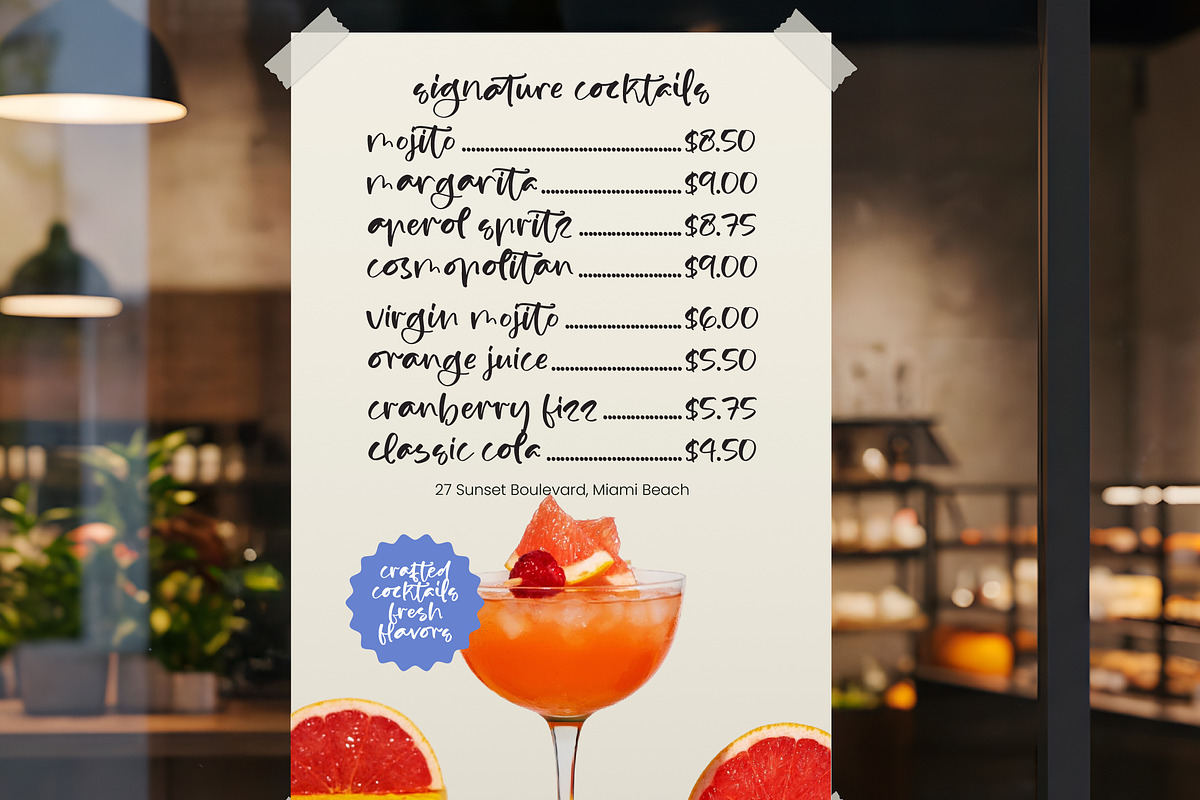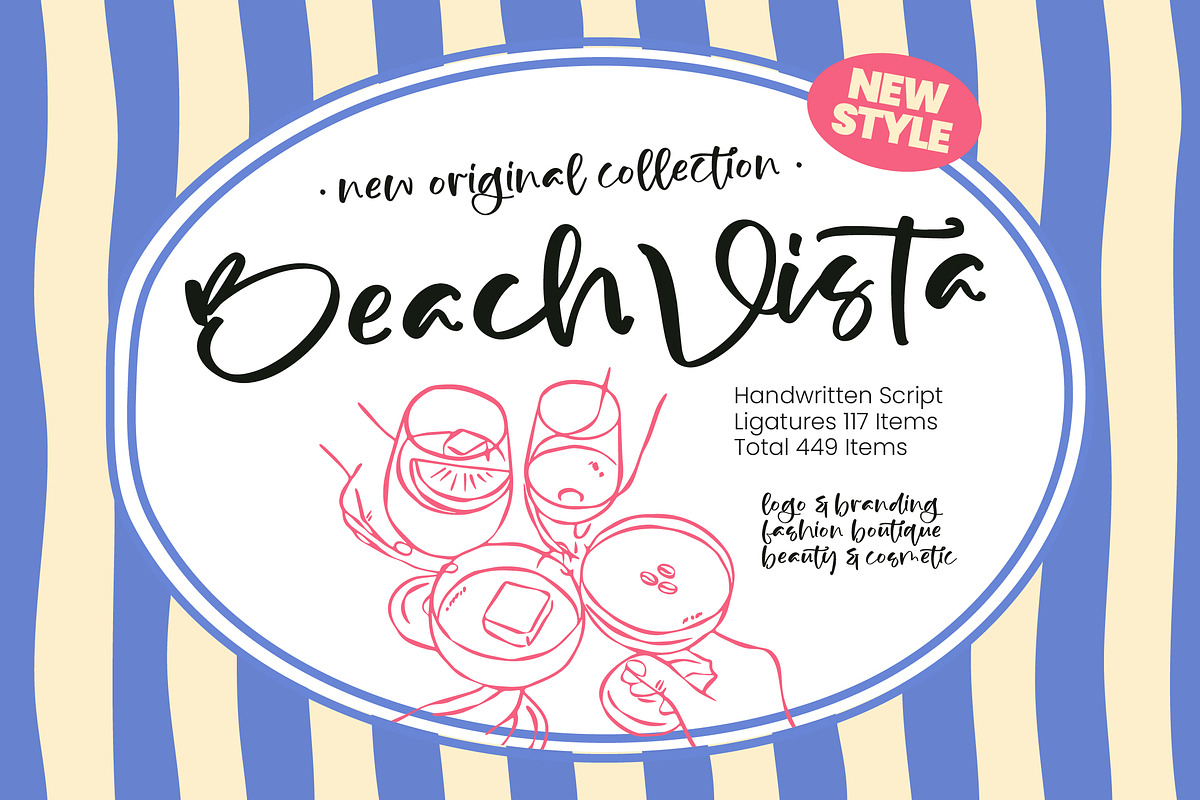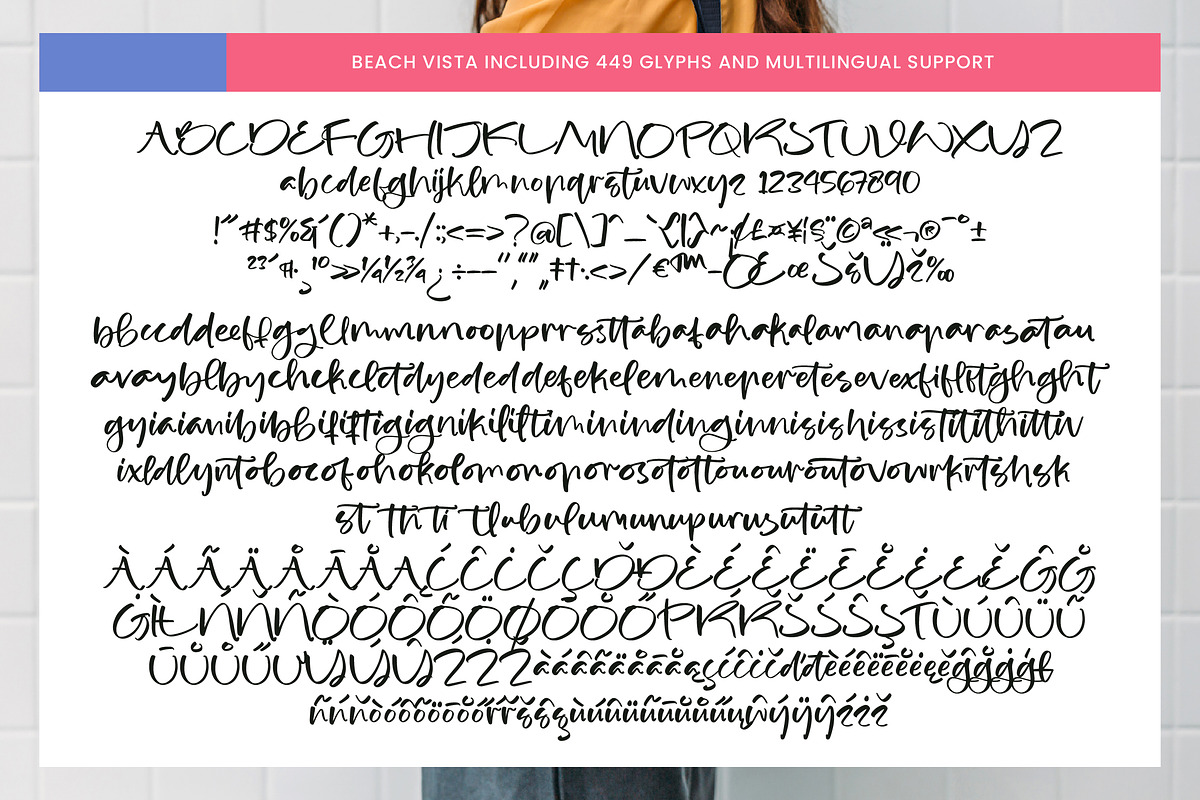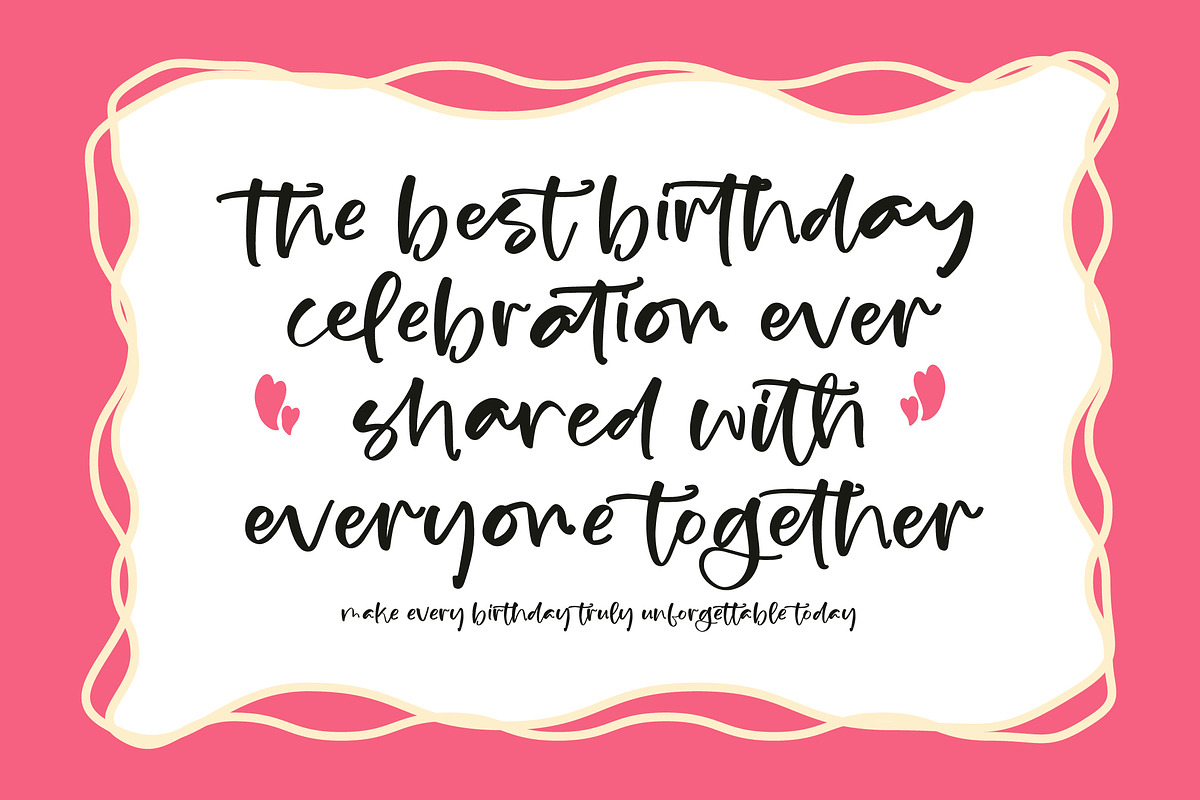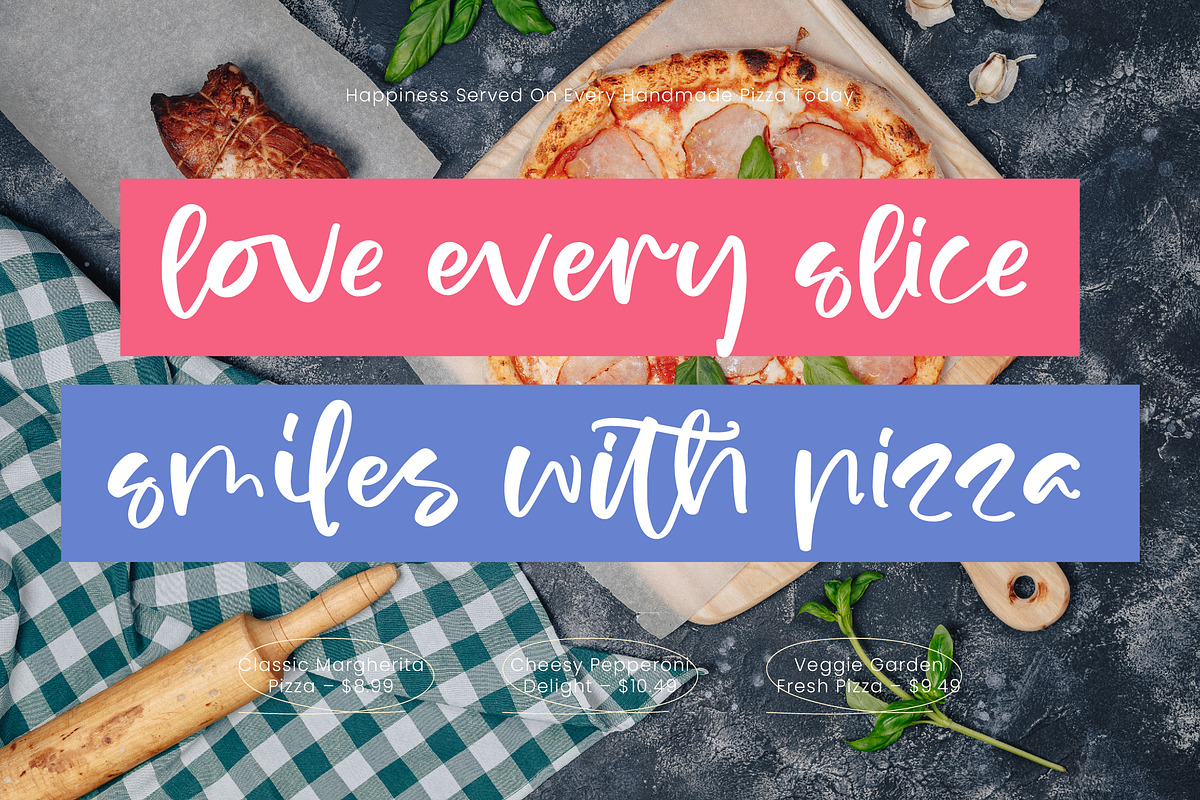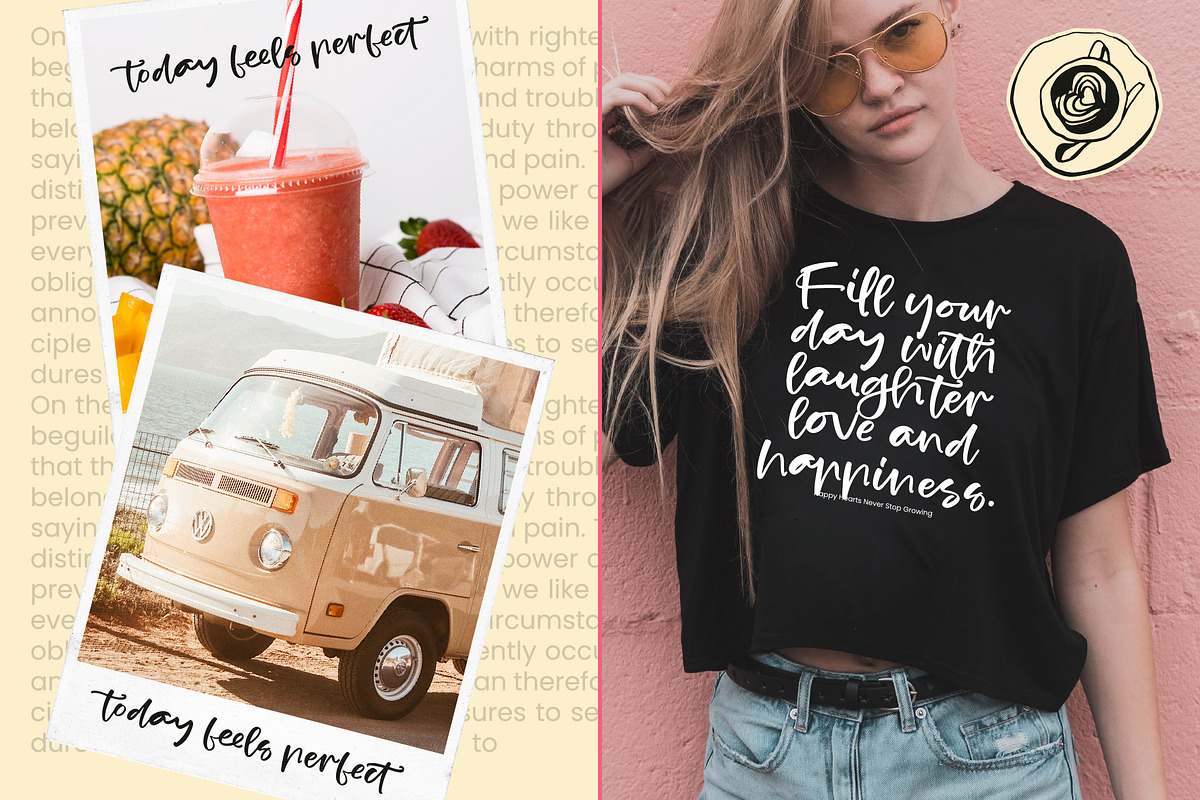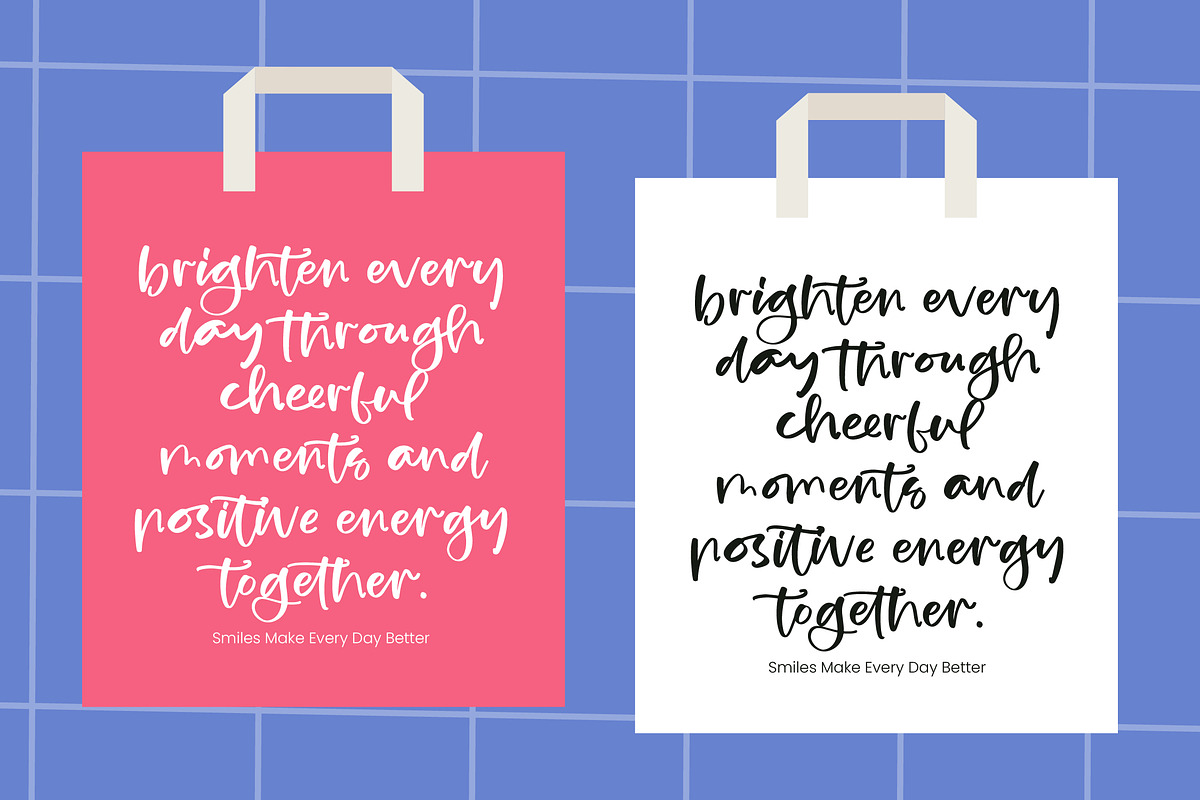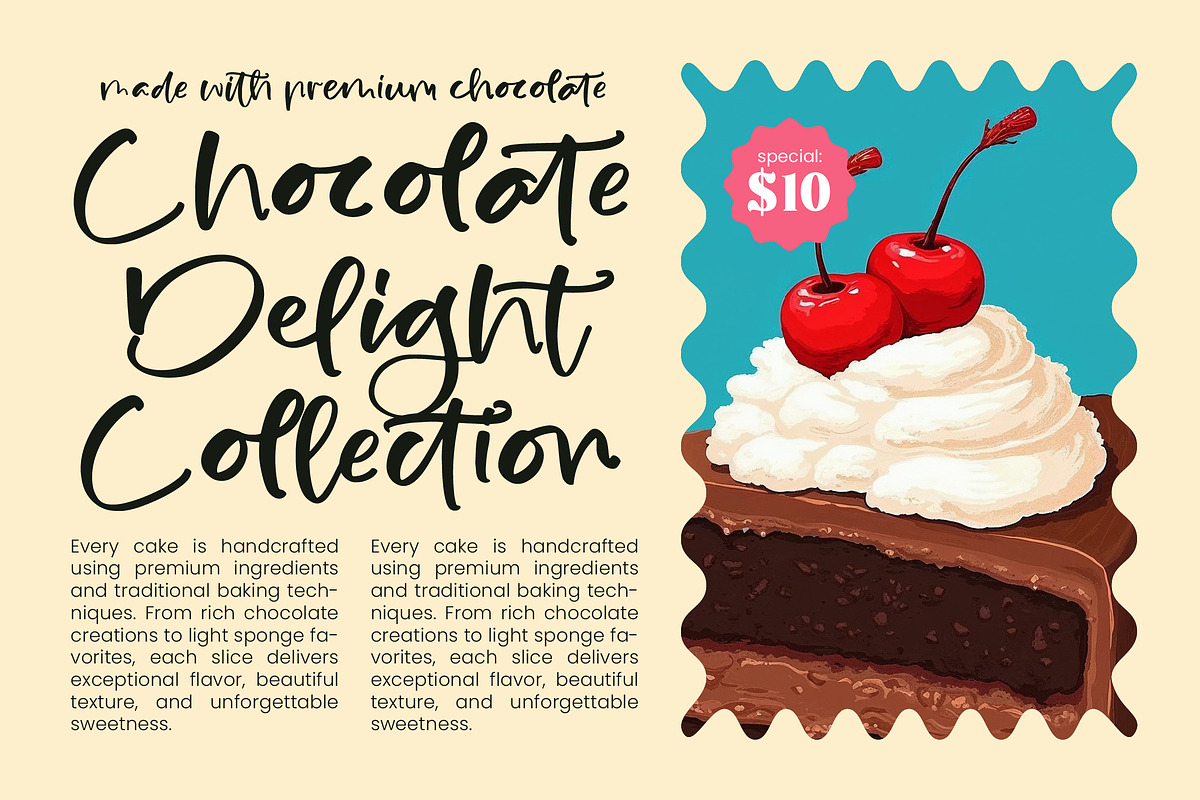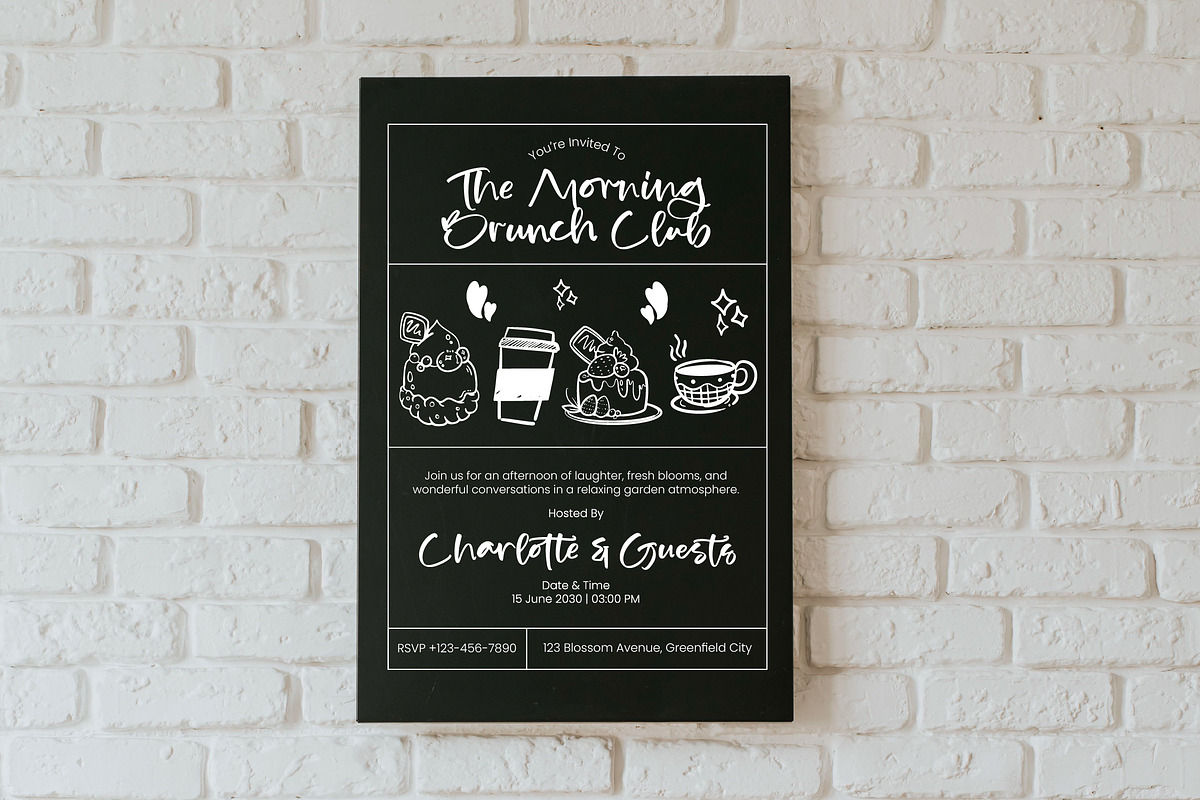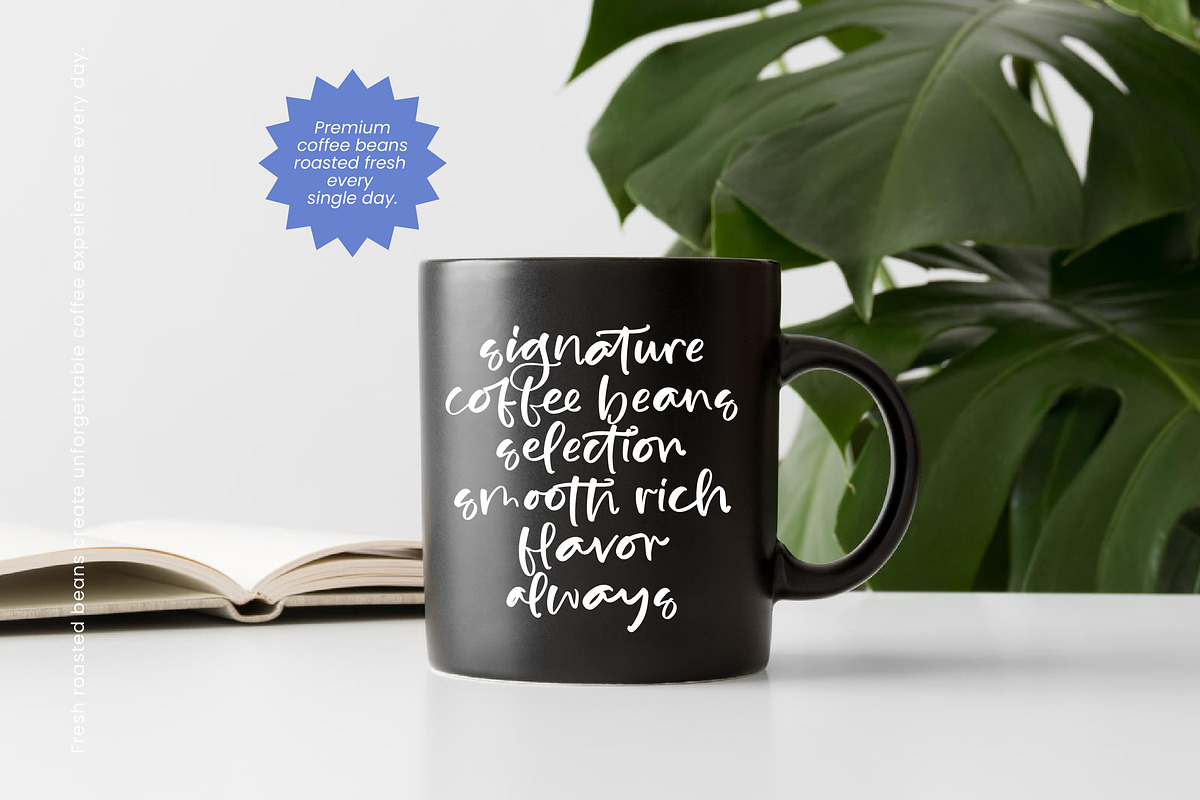
Beach Vista Handwritten Script
Beach Vista - Handwritten Script , Elevate your design projects with an organic touch of unmatched character. Beach Vista - Handwritten Script offers a refreshing blend of casual elegance and modern sophistication. Its rhythmic, hand-drawn strokes capture a relaxed, coastal vibe while maintaining a professional finish that stands out in a crowded digital landscape.
Experience ultimate versatility with a typeface built for the global design market. Featuring an impressive collection of 117 ligatures and a comprehensive set of 449 items, this font ensures a natural flow that perfectly mimics genuine calligraphy. With its extensive multilingual support, Beach Vista - Handwritten Script adapts seamlessly across global markets, making it incredibly versatile for international projects.
Unlock new creative possibilities across a wide range of premium industries. This typeface is the perfect solution for luxury branding, fashion boutiques, and beauty and cosmetic packaging. Whether you are crafting a high-impact signature logo, editorial layouts, or bespoke stationary, Beach Vista - Handwritten Script provides the distinct, artisanal personality needed to resonate with your target audience.
Transform your brand identity with an authentic, handcrafted aesthetic. By integrating Beach Vista - Handwritten Script into your creative toolkit, you gain access to a premium design asset that balances accessibility with a high-end feel. It is a must-have font for designers seeking to combine the warmth of a human touch with the commercial precision required for modern visual storytelling.